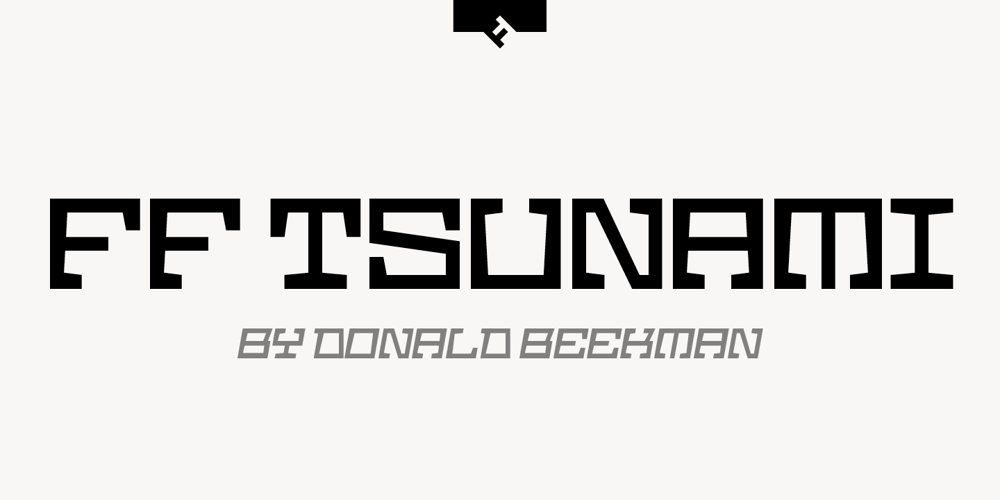
FF Tsunami Font Family was designed by Donald Beekman and published by FontFont. FF Tsunami contains 8 styles and family package options. Dutch type designer Donald Beekman created this display FontFont in 1999. The family has 8 weights, ranging from Regular to Bold in Normal and Expanded (including italics) and is ideally suited for music and nightlife and poster and billboards. FF Tsunami provides advanced typographical support with features such as ligatures and case-sensitive forms. It comes with proportional lining figures.